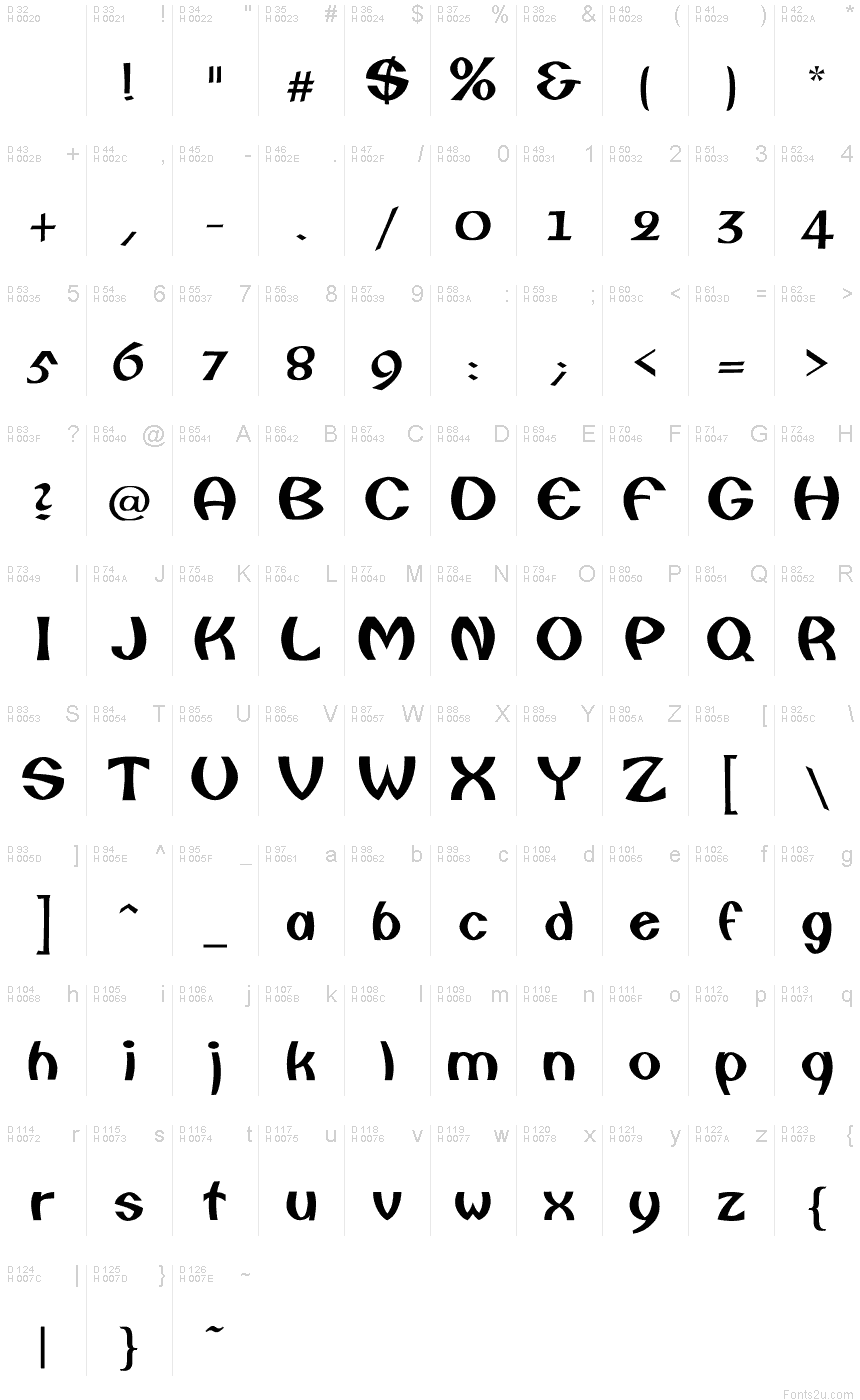
Camberic
Camberic font is a free comic display font with a sly old-storybook streak. The strokes feel soft and carved at once, mixing plump curves with sharp, inky cut-ins that give each word a playful bounce and just a touch of mischief.
Using Camberic works beautifully for kids’ book covers, fantasy posters, café menus, board game titles, classroom signs, handmade packaging, and quirky social graphics. This free font shines at larger sizes; pair it with a clean sans-serif for body copy so Camberic keeps all its charm without crowding the page.